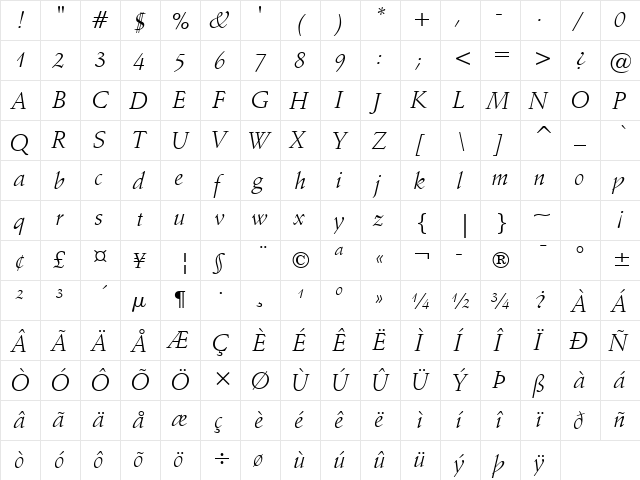
Schneidler BT Italic
Design Context for Schneidler BT Typeface
Schneidler BT offers clean, dependable letterforms without strong stylistic allegiance, making it a practical choice for designers who need flexibility. The dynamic lean of this cut emphasises speed and emphasis in any layout.
Pro Tip: Try Schneidler BT for annotation and caption copy alongside an upright companion — the contrast in angle creates a dynamic but ordered typographic system.